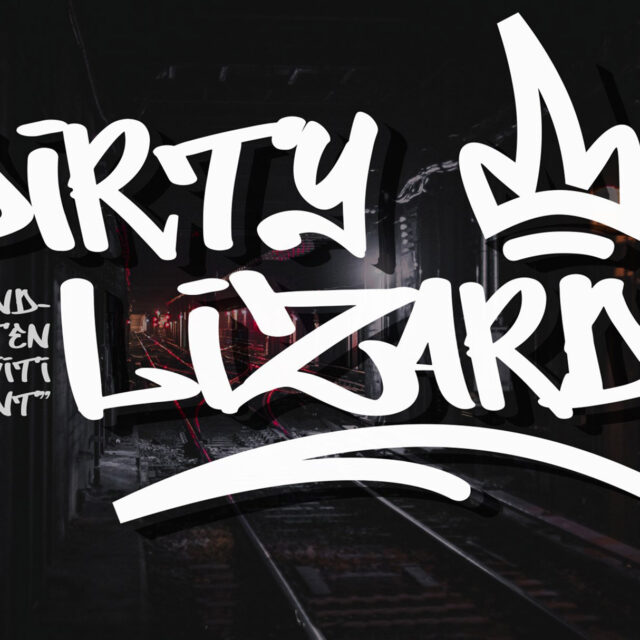
About Dirty Lizard
“Dirty Lizard” is a monoline graffiti font that incorporates swash and crown characters. Monoline fonts typically consist of letterforms with uniform line thickness, providing a clean and consistent appearance. In this case, the addition of swash and crown characters adds decorative elements and style variations to the font.
With “Dirty Lizard,” you can achieve a graffiti-inspired look that combines clean, consistent lines with decorative elements. These extra characters can enhance the visual appeal and uniqueness of your text, making it suitable for various design projects, especially those where a blend of a clean monoline style with decorative elements is desired.
Features:
- Standards Characters
- Swash
- Punctuation